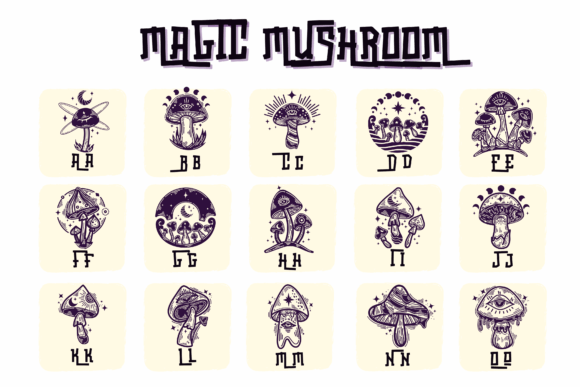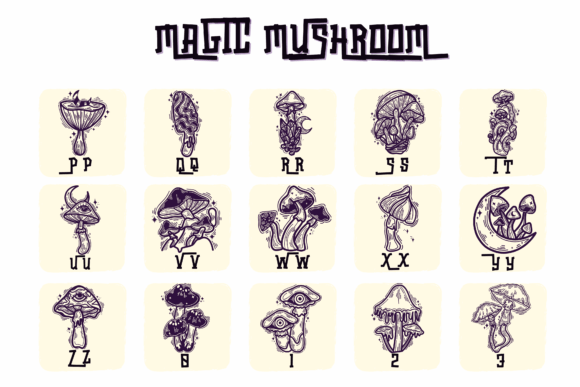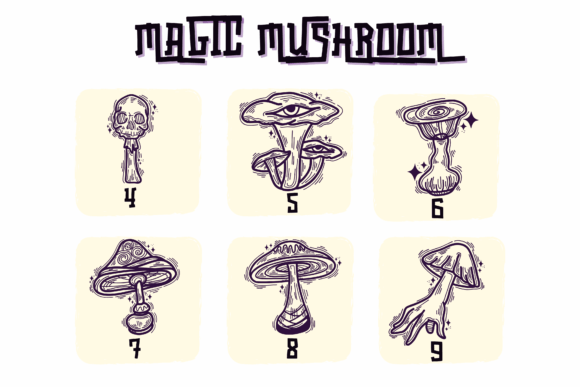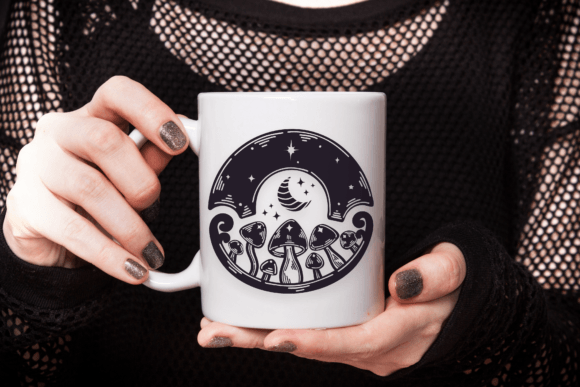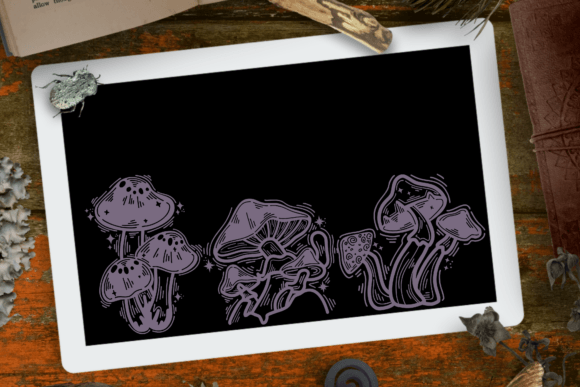
Introduction to Magic Mushroom Font
Have you ever been working on a creative project, only to find yourself stuck for the perfect visual element? You’ve spent hours scouring design resources, searching for that one special thing that will bring your vision to life. And then, suddenly, it hits you – a spark of inspiration that leaves you breathless and excited. For designers, moments like these are what make the job so rewarding. And if you’re anything like me, you’ll know that the right font can be the key to unlocking that creative magic.
Enter the Magic Mushroom Font – a dingbats font with a whimsical sketched style that’s perfect for adding a touch of personality to your designs. With its unique, hand-drawn look and transparent background, this font is a high-quality design resource that’s sure to elevate your creative projects. And the best part? It’s available for free download, making it an invaluable asset for designers of all levels.
Key Features of Magic Mushroom Font
- Unique, hand-drawn design with a whimsical touch, perfect for creative projects and artistic endeavors.
- Features a transparent background, making it easy to place over any image or color without losing its distinctiveness.
- Designed to be highly versatile, the Magic Mushroom Font is suitable for a wide range of creative projects, from branding and advertising to digital art and print materials.
- Includes a comprehensive character set, including uppercase and lowercase letters, numbers, and special characters, making it a reliable choice for everyday use.
Honest Review: Magic Mushroom Font
I recently stumbled upon the Magic Mushroom Font while searching for a unique design resource for my next creative project. I must say, it’s a delightful find!
What works well about this font is its whimsical and playful nature, perfect for adding a touch of magic to your designs. The font is available for free download, which is a huge plus for designers on a budget. The high-quality design ensures that it looks great even when used with a transparent background.
Here are some key features that make the Magic Mushroom Font stand out:
- Unique and playful design
- Transparent background support
However, I do have a few limitations to mention:
- Only available in a few weights and styles
- Not suitable for formal or professional designs
Overall, I’m quite impressed with the Magic Mushroom Font. It’s a great addition to any designer’s collection, especially for creative projects that require a touch of whimsy. With its high-quality design and free download, it’s definitely worth checking out.
How to Use Magic Mushroom Font
The Magic Mushroom Font is a unique and eye-catching design resource perfect for creative projects that require a touch of whimsy. With a transparent background, this font is highly versatile and can be used in a variety of applications.
To get the most out of the Magic Mushroom Font, experiment with different font sizes, colors, and combinations to create unique and eye-catching designs.
The Magic Mushroom Font is perfect for a variety of creative projects, including: social media graphics, blog posts, and marketing materials.
Can I use the Magic Mushroom Font with a transparent background, and are there any technical limitations?
Yes, you can use the Magic Mushroom Font with a transparent background, but please note that the font’s transparency is limited to a certain level. The font is designed to work well with a transparent background, but it may not work perfectly in all situations. This is due to the technical limitations of font rendering and the complexity of transparent backgrounds.